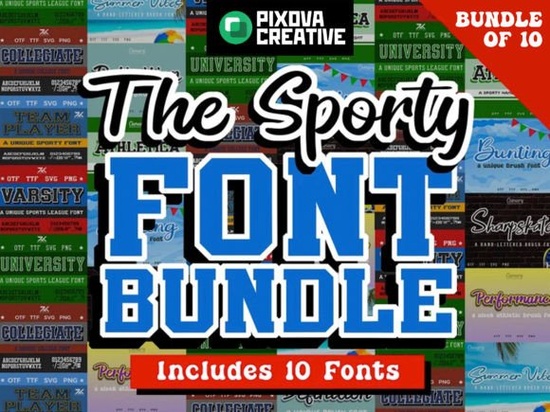
If you're looking for sporty, bold, and instantly recognizable typefaces for t-shirts, team posters, gym branding, or school spirit projects, the Sport Bundle Font is a straightforward, practical choice. It’s not a single font it’s a thoughtfully curated set of 10 distinct sport-themed fonts, each with its own personality and use case. You don’t need design experience to get started: all fonts install in seconds on Mac or Windows and work across common tools like Canva Pro, Cricut Design Space, Silhouette Studio, Adobe apps, and even Microsoft Word or PowerPoint.
Which projects does this bundle actually help with?
This isn’t just for athletic logos or jersey numbers. Think about small businesses launching a summer fitness challenge, crafters making custom water bottles for local 5Ks, teachers designing classroom sports charts, or print-on-demand sellers building seasonal collections around football season, volleyball tournaments, or youth soccer camps. The Sport Bundle Font gives you flexibility without needing to hunt down individual fonts or worry about licensing limits.
For example, Varsity font delivers that classic letterman jacket look great for retro merch. University font leans into collegiate branding with clean, structured letterforms. If you’re designing for skate parks or urban fitness studios, Sharpskater font adds subtle edge without sacrificing readability.
How easy is it to use these fonts in real workflows?
You’ll also find them useful beyond digital layouts. These fonts hold up well when cut on vinyl, engraved on wood, or printed on fabric especially Collegiate font and Bunting font, both designed with strong outlines and clear counters for legibility at smaller sizes.
What makes this different from free sport fonts online?
Who’s this best suited for?
- Print-on-demand sellers who need fast-turnaround, on-trend designs for seasonal sports niches
- Crafters using Cricut or Silhouette who want ready-to-cut fonts with clean vector paths
- Small gyms or rec centers creating flyers, social posts, or signage without hiring a designer
- Teachers and coaches building motivational posters or team handouts
- Hobbyists making personalized gifts think graduation banners, birthday party signs, or family tournament trophies
One thing users appreciate is consistency: while each font has its own voice, they share similar weight, x-height, and spacing logic. That means switching between Athletica font and Performance font feels intentional, not jarring. And if you ever need something softer but still thematic, Vogue font offers a stylish alternative for fashion-sports crossover projects.